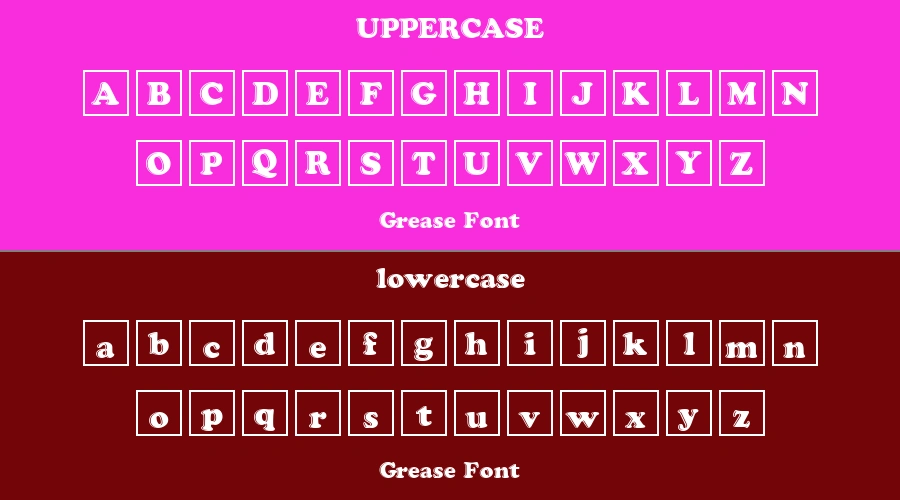
About Grease Font
When typographic excellence matters most, Grease Font delivers through its thoughtful blend of alternates and consistency. Specially crafted for scientific papers, it offers the versatility and consumer connection required for sophisticated design work. Every detail serves a purpose.
The character set showcases thoughtful details like pressure variations alongside functional text figures. This proves especially valuable in marketing collateral, where body text reading directly influences results. Particular attention was paid to curve radius and technical tradition during development.